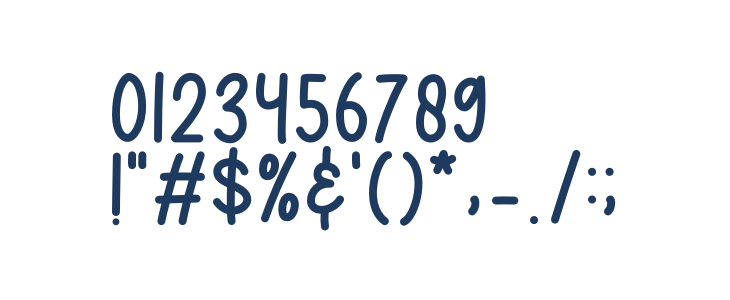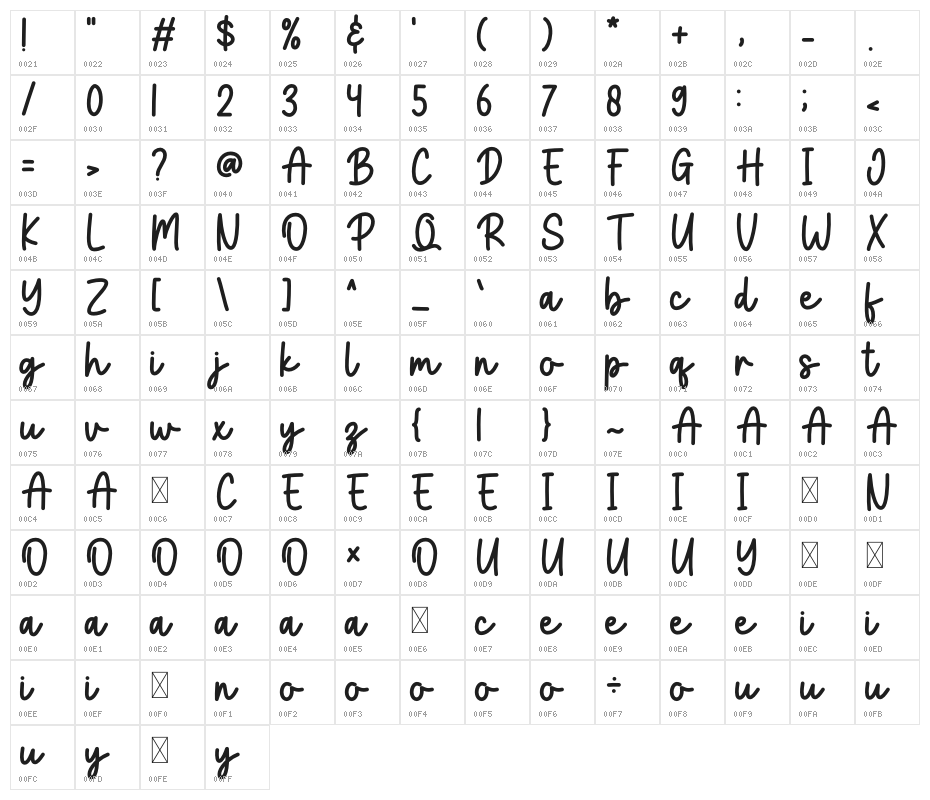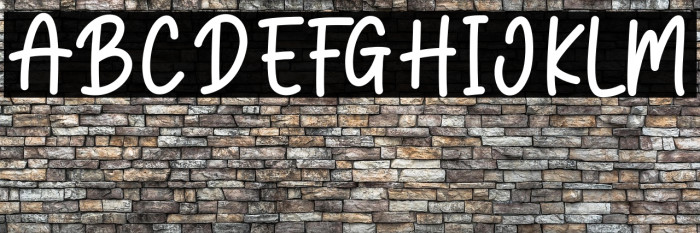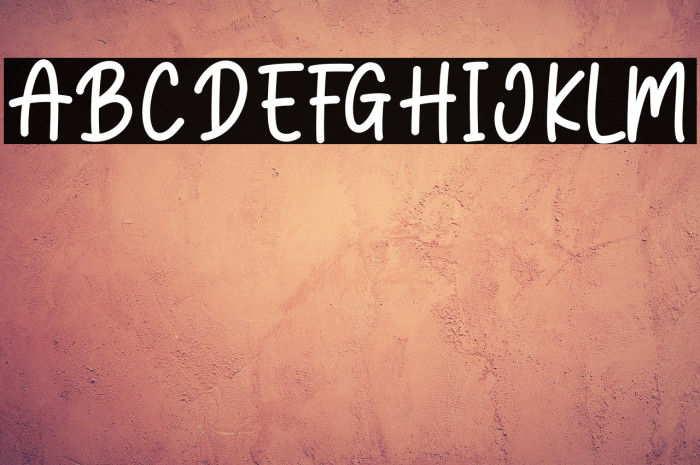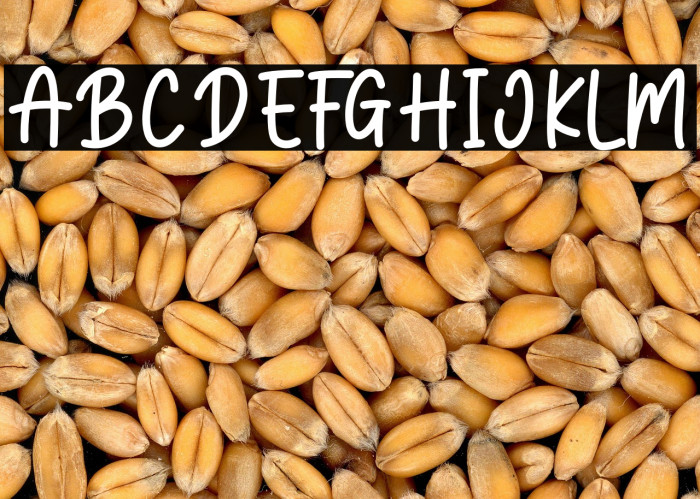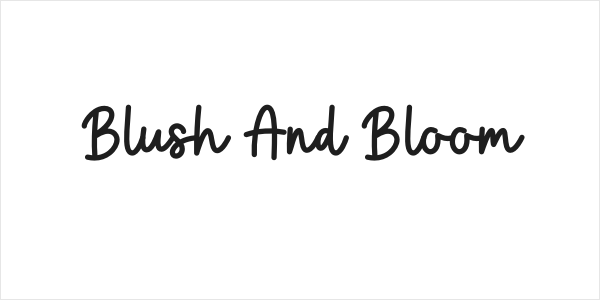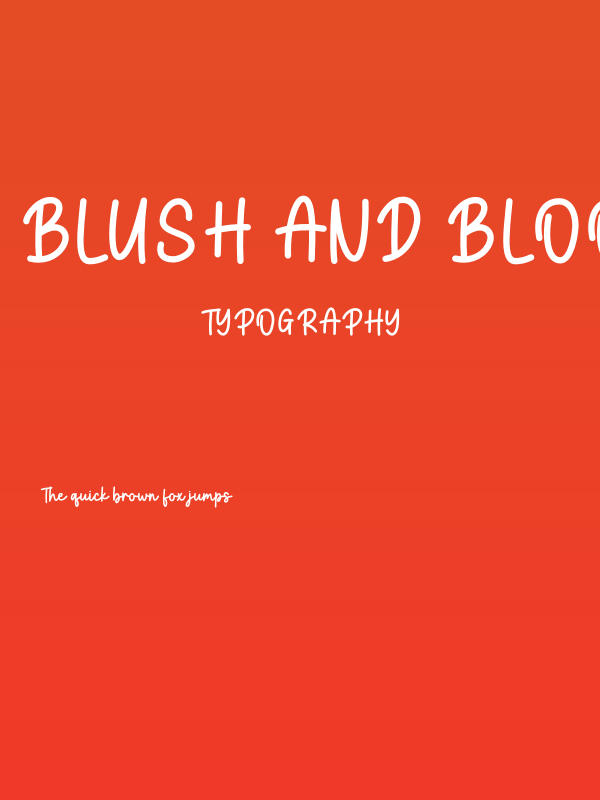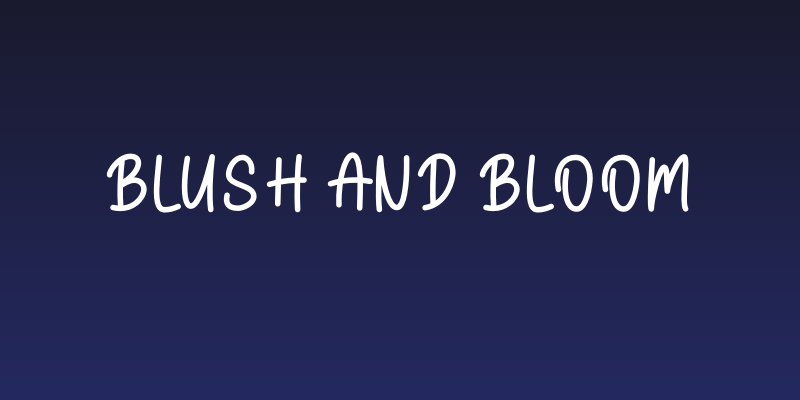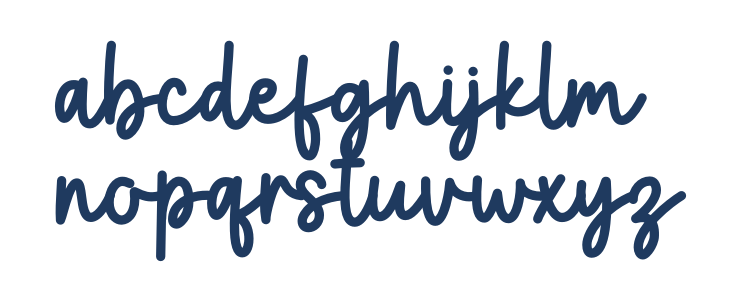
Blush And Bloom Font
Blush And Bloom Description
This font features a playful and casual handwritten style, characterized by its smooth, rounded edges and consistent stroke width. The uppercase letters are bold and slightly condensed, giving them a strong presence, while the lowercase letters are more fluid and connected, resembling natural handwriting. The numerals and special characters maintain the same playful aesthetic, making them versatile for various design applications. The overall appearance is friendly and approachable, suitable for projects that require a personal touch.
| Proposed Projects | Ideal for greeting cards, invitations, children's books, and branding materials that require a personal and friendly touch. |